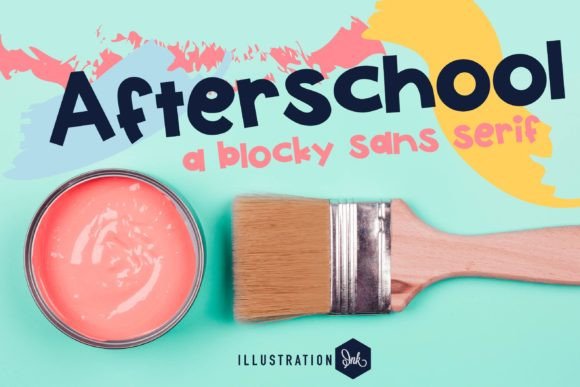
The Joy of Afterschool Font: Adding Whimsy to Your Designs
I’ll never forget the time I was working on a project for a children’s event, and I just couldn’t find the right font to capture the playful vibe I was going for. The client wanted something that would appeal to kids, but still look professional. I spent hours scouring the internet, trying out font after font, until I stumbled upon Afterschool. It was like a breath of fresh air – blocky, silly, and incredibly crafty, this handwritten font brought my design to life in a way I never thought possible.
An Honest Review of Afterschool Font
• ✨ The playful, hand-crafted feel that adds a touch of whimsy to any design
• ✅ The font’s versatility – it works for everything from kids’ events to crafty DIY projects
• 💕 The way it pairs perfectly with bold colors and fun graphics
• 🎉 The unique character set, including glyphs and stylistic alternates, that lets you customize your text
While Afterschool Font is an amazing addition to any design, there are a few things to keep in mind. 🤔 For example, some of the characters can be a bit quirky, and you’ll need to play around with the kerning to get the spacing just right. ⚠️ Additionally, the font can be a bit overused, so be sure to balance it with some cleaner typography to avoid overwhelming your design.
The Backstory Behind Afterschool Font
Afterschool Font was designed by a team of creatives who wanted to capture the playful, carefree spirit of childhood. The font’s designer was inspired by the colorful, whimsical world of kids’ art and imagination, and set out to create a font that would bring that world to life.
The result is a font that’s both fun and functional, with a unique character set and a range of OpenType features that let you customize your text. Whether you’re working on a kids’ event, a DIY project, or just want to add some extra personality to your designs, Afterschool Font is the perfect choice.
Is Afterschool Font suitable for body text? While Afterschool Font is a beautiful font, it’s best suited for headlines and titles rather than body text. Its playful, hand-crafted feel can be a bit overwhelming for longer blocks of text.